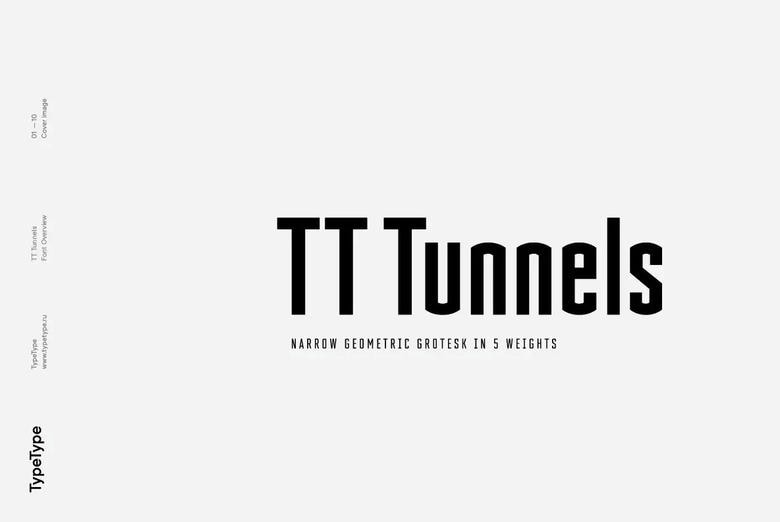
TT Tunnels Font Family
TT Tunnels is a glyptal modular font family with very narrow metrics and much greater opzonal weights of expansive, highly visible compensating elements. In the basic version of the typeface all glyphs have simple chopped shapes but they are build according to the traditional geometric methods.
In the TT Tunnels, which are accessible when you enable OpenType feature salt or ss01, the typeface transforms into a stylized ductal gothic grotesque font, where glyph forms design is constructed with reference to the tool movement.